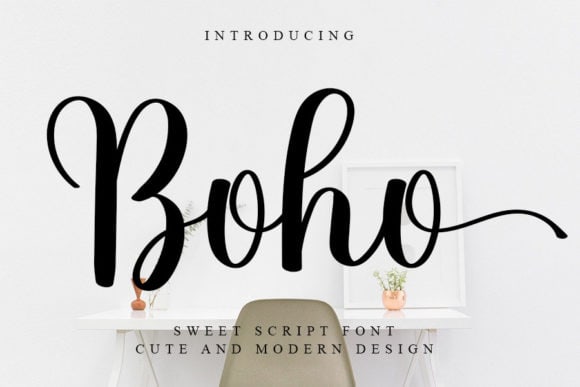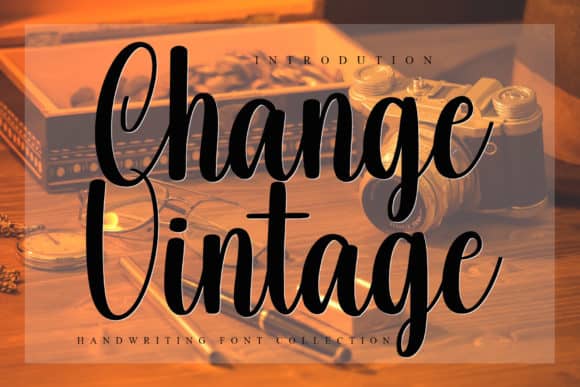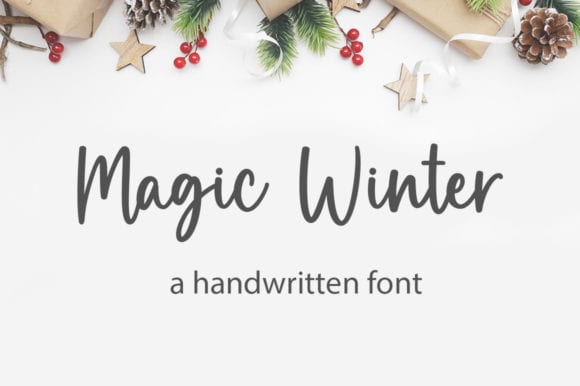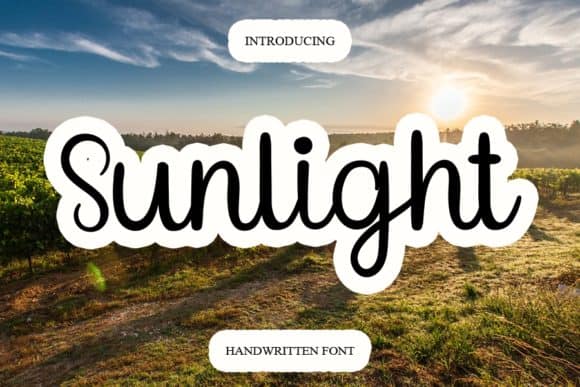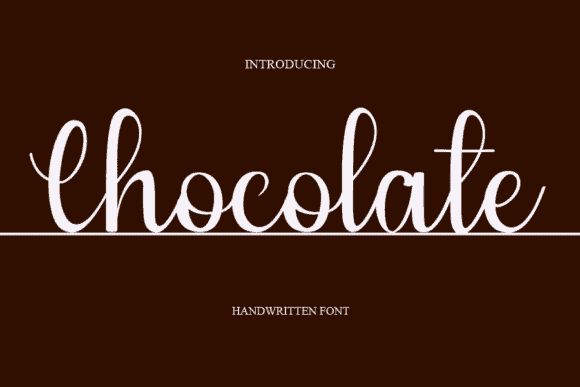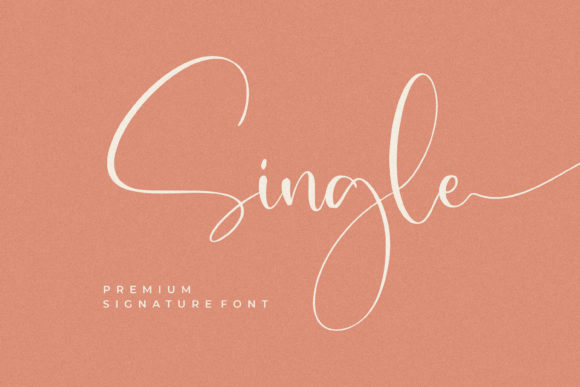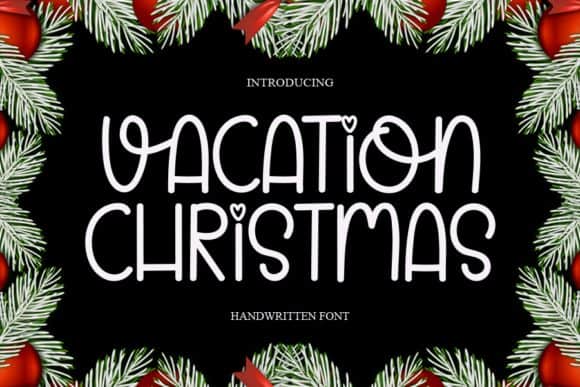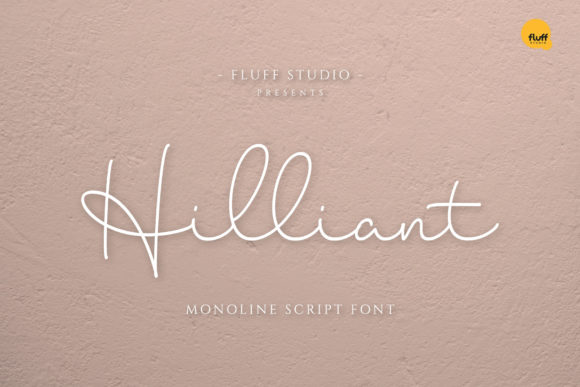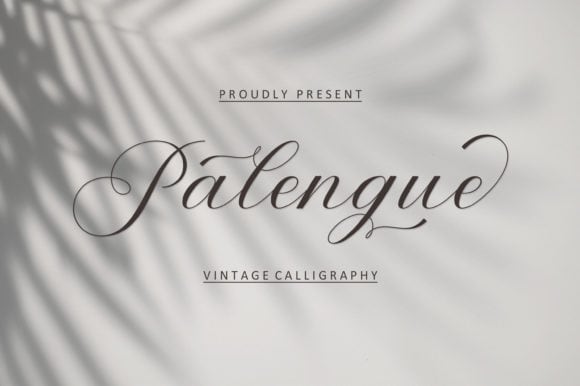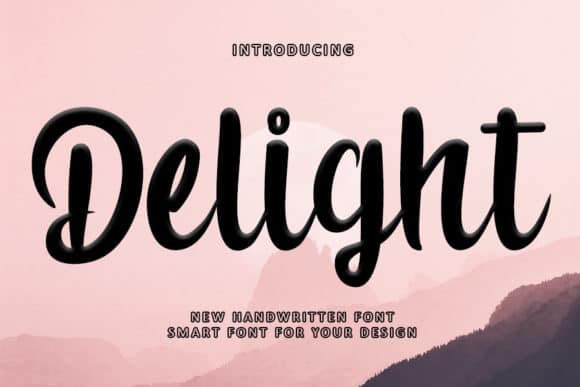
1. Boho Font
Boho is a flowing and graceful script font. Fall for its ravishing style and use it to create gorgeous wedding invitations, beautiful stationary art, eye-catching social media posts, and much more!
2. Change Vintage Font
Change Vintage is a simple, natural and flowing script font. It looks stunning on wedding invitations, thank you cards, quotes, greeting cards, logos, business cards and every other design which needs a customized touch.
3. Magic Winter Font
Magic Winter is a stylish and incredibly elegant script font. It looks stunning on wedding invitations, thank you cards, quotes, greeting cards, logos, business cards and every other design which needs a handwritten touch. This font is PUA encoded which means you can access all glyphs and swashes with ease!
4. Sunlight Font
Sunlight is an elegant script font with a contemporary atmosphere and impeccable form, inspired by timeless classic calligraphy. Not too thin and not too thick, balanced and varied, this font was designed to enhance the beauty of your projects.
5. Chocolate Font
Chocolate is an enchanting handwritten font. This versatile script font has a wide spectrum of applications ranging from greeting cards to headlines and is guaranteed to add a romantic feel to your next project.
6. Single Font
Single is a beautiful and light handwritten font with a unique feel and a stunning impact. It will add a luxury spark to any design project that you wish to create! This font is PUA encoded which means you can access all of the amazing glyphs and ligatures with ease!
7. Vacation Christmas Font
Vacation Christmas is an exquisite handwritten font, masterfully designed to become a true favorite. It maintains its classy calligraphic influences while feeling contemporary and fresh.
8. Hilliant Font
Hilliant is an exquisite handwritten font, masterfully designed to become a true favorite. It maintains its classy calligraphic influences while feeling contemporary and fresh. Fall in love with it and bring your projects to the highest levels!
9. Palengue Font
Palengue is an incredibly elegant and delicate handwritten font. It has beautiful and well balanced characters and as a result, it matches a wide pool of designs. Palengue features a varying baseline, smooth lines, gorgeous glyphs and stunning alternates.
10. Delight Font
Delight is a delicate, elegant and flowing handwritten font. It has beautiful and well balanced characters and as a result, it matches a wide pool of designs. Add it to your most creative ideas and notice how it makes them come alive!
1. Rasberry Font
Rasberry is an exquisite handwritten font, masterfully designed to become a true favorite. This font is PUA encoded which means you can access all of the amazing glyphs and ligatures with ease!
2. Happiness Font
Happiness is an elegant script font with a contemporary atmosphere and impeccable form, inspired by timeless classic calligraphy. Not too thin and not too thick, balanced and varied, this font was designed to enhance the beauty of your projects.
3. Journey of Night Font
Journey of Night is a lovely and timeless handwritten font. It is the best choice for creating eye catching logos, branding and quotes. This font is PUA encoded which means you can access all of the amazing glyphs and ligatures with ease!
4. Sunday Font
Sunday is an elegant script font with a contemporary atmosphere and impeccable form, inspired by timeless classic calligraphy. Not too thin and not too thick, balanced and varied, this font was designed to enhance the beauty of your projects.
5. Madelena Font
Madelenais is a modern script font. Stylish and feminine, Madelena looks beautiful in wedding invitations, thank you cards, quotes, greeting cards, logos, business cards and much more.